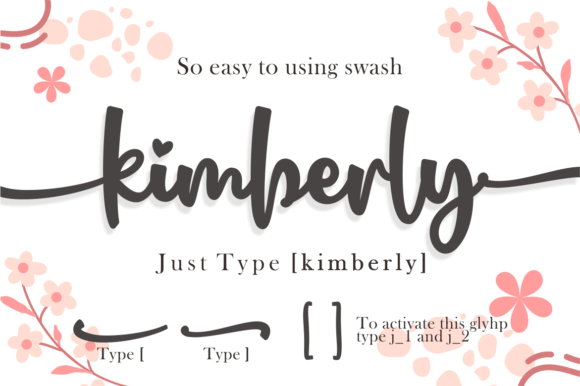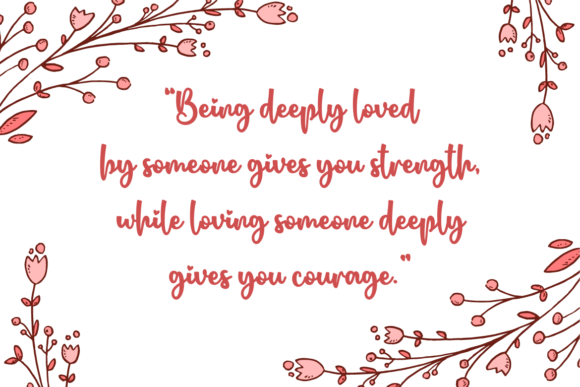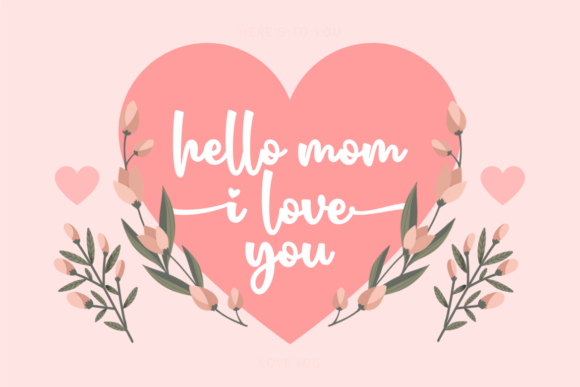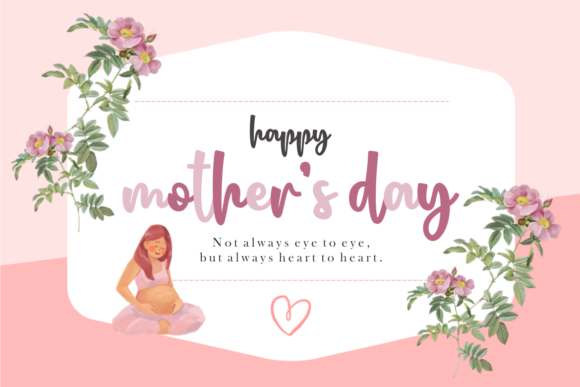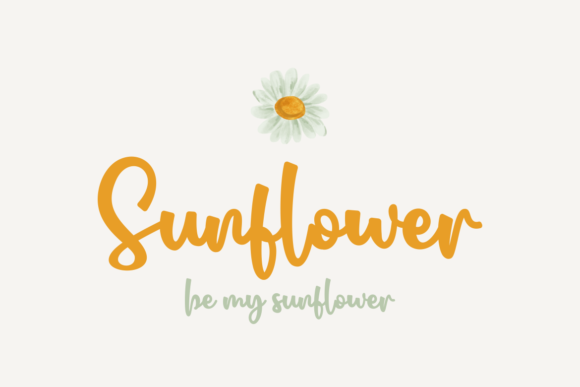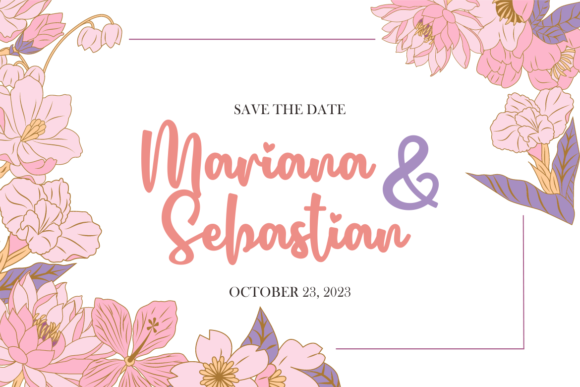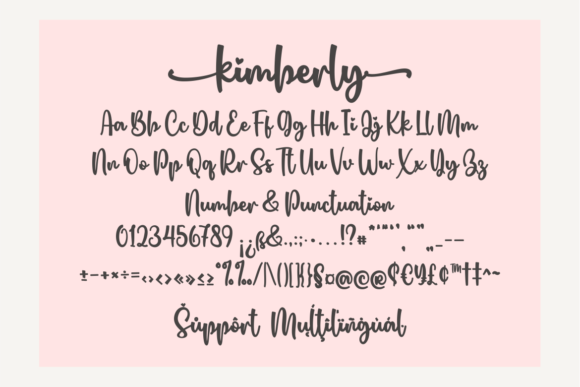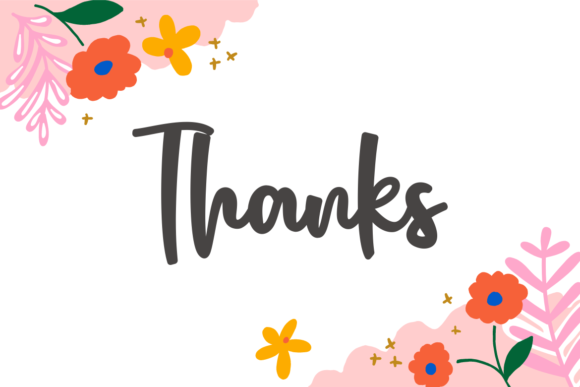
Kimberly Font
About Kimberly Font
“Kimberly” is a stylish and modern handwritten font, carefully crafted to suit a wide spectrum of applications. Whether you’re designing greeting cards or creating captivating headlines, this font ensures a romantic touch to each of your creations. Notably, “Kimberly” is PUA encoded, providing easy access to a plethora of glyphs and swashes for effortless customization.
The stylish and modern aesthetic of “Kimberly” makes it versatile for a range of design purposes. Its handwritten charm adds a personal and contemporary feel to your projects, making it suitable for applications such as greeting cards, headlines, and more.
For greeting cards, “Kimberly” brings a romantic touch that enhances the sentiment of your messages. The font’s stylish design contributes to the overall appeal, creating cards that are both visually appealing and heartfelt.
In headlines and other typographic elements, “Kimberly” stands out with its modern and captivating style. The handwritten quality adds a touch of authenticity and uniqueness, making it an excellent choice for projects that require a stylish and personalized approach.
The PUA encoding of “Kimberly” enhances its user-friendly nature. Designers can easily access a variety of glyphs and swashes, allowing for seamless customization to match the specific requirements of their projects.
Whether applied to digital or print media, “Kimberly” ensures a romantic and modern aesthetic. Its versatility and PUA encoding make it a valuable asset for designers seeking a font that effortlessly combines style, romance, and ease of use.
In summary, “Kimberly” is a stylish and modern handwritten font that guarantees a romantic touch to your creations. Its suitability for greeting cards, headlines, and more, coupled with PUA encoding for easy customization, positions “Kimberly” as a versatile and charming choice for a diverse range of design projects. Let “Kimberly” be the font that adds a touch of contemporary romance to your creative endeavors.